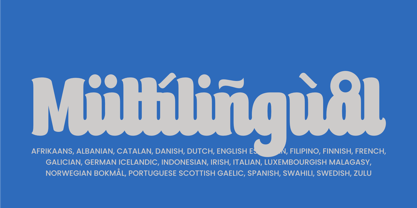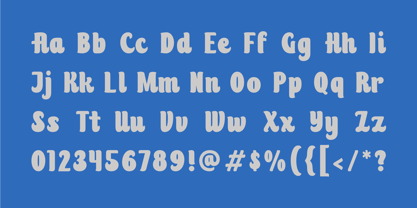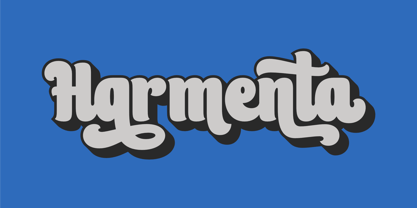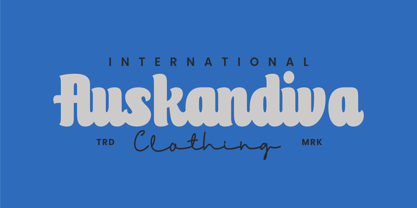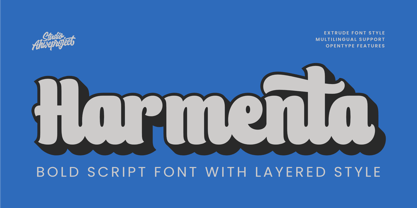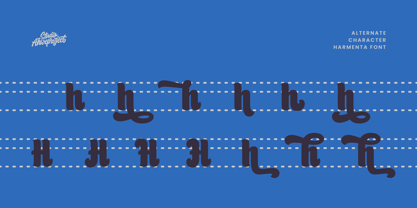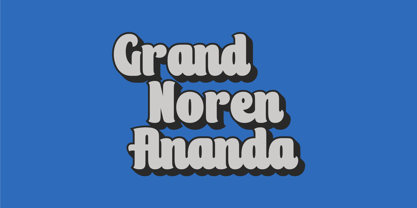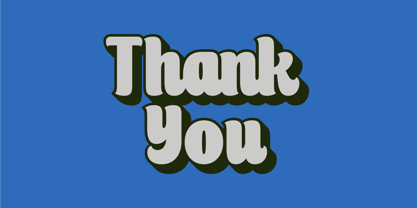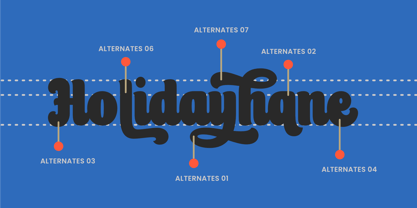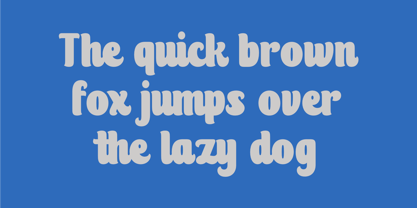
Harmenta
by ahweproject
The Harmenta Font Family was designed by Dida Ahluddin and published by ahweproject. Harmenta contains 2 styles and family package options. More about this family
Bring boldness and playfulness to your designs with Harmenta, a bold script font with a layered style that’s made to stand out! Harmenta features thick, smooth letterforms with a touch of modern retro, perfect for branding, packaging, posters, logos, and social media headlines. This font comes with an extrude (layered) style that creates an eye-catching 3D effect—no extra software needed, just stack and play with colors! Harmenta also supports multilingual characters and includes OpenType features like stylistic alternates to give you more creative flexibility. Features: – Bold script with smooth, flowing shapes – Layered (extrude) style for stunning 3D effects – Multilingual support – OpenType features (stylistic alternates) – Perfect for branding, posters, packaging, kids’ projects, and more Level up your design game with Harmenta, a font that blends visual strength with creative charm in every letter! We strongly recommend using applications that support Opentype Features and Glyphs panels such as Adobe Apps and Corel Draw. So you can see and access all the variations of Glyphs. Happy Design!
Designers: Dida Ahluddin
Foundry: ahweproject